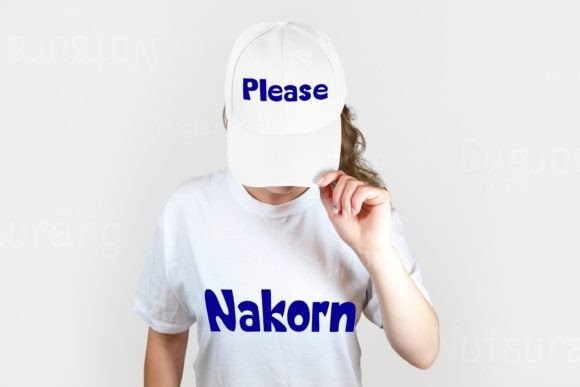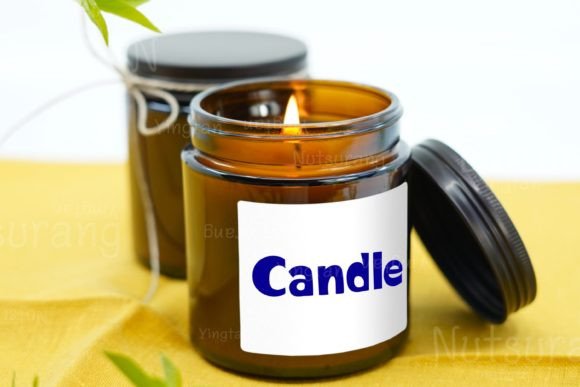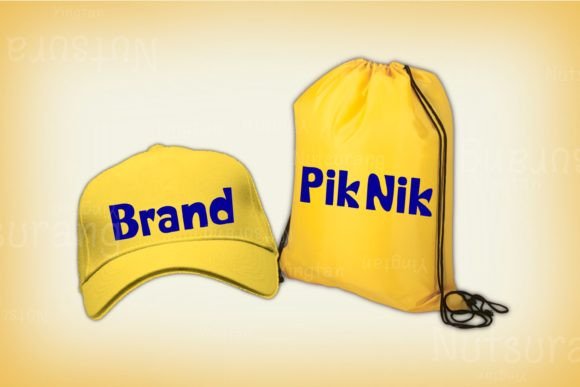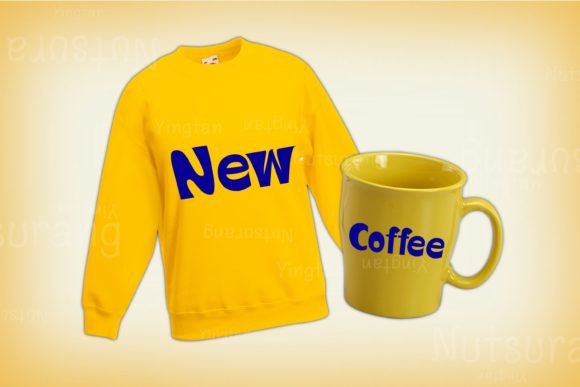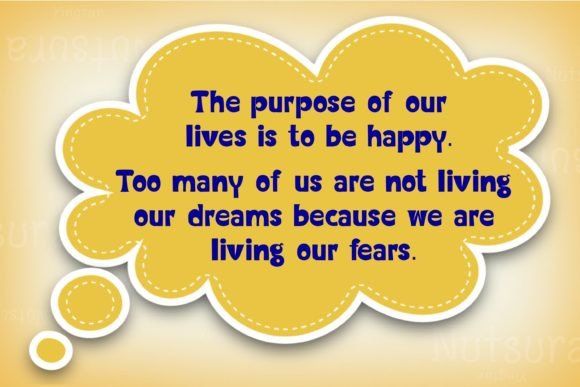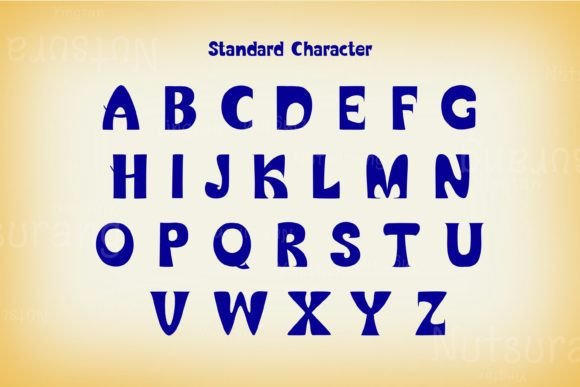
Introduction to Entity for You Font
Entity for You is a bold and modern display font, perfect for your most creative design projects.
Add it to book covers, product packaging, banners, posters, or anything bid and bold .
Key Features of Entity for You Font
Why Choose Entity for You Font?
Entity for You Font offers exceptional quality and versatility, making it a valuable addition to your design toolkit. Whether you’re creating for personal projects or commercial use, Entity for You Font delivers professional results.